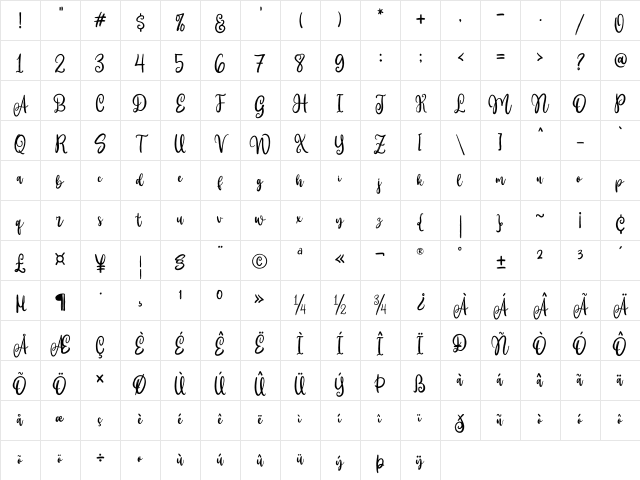
Mitchell Wesley Regular Free Font
Mitchell Wesley Regular
Foundry: Fargun Studio
Designer: Fajar Gunawan
Design Context for Mitchell Wesley
Mitchell Wesley is a composed and adaptable typeface that performs quietly and consistently across a wide range of design contexts.